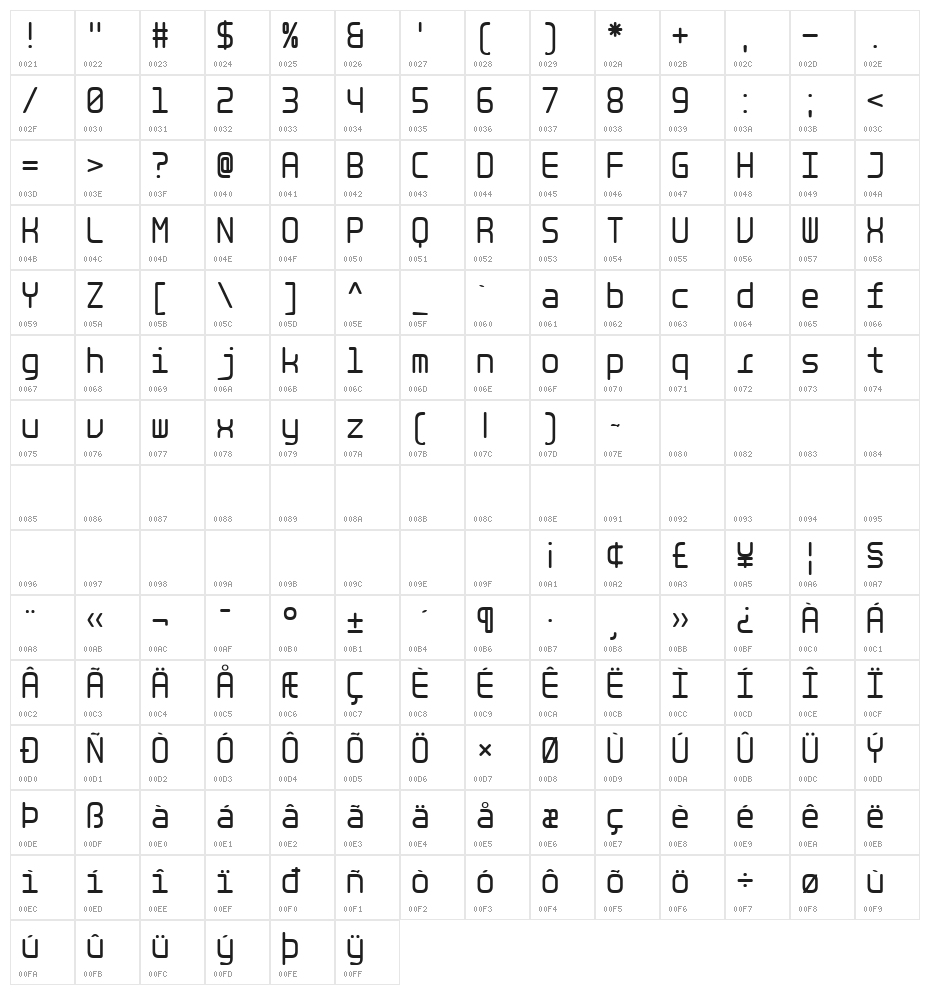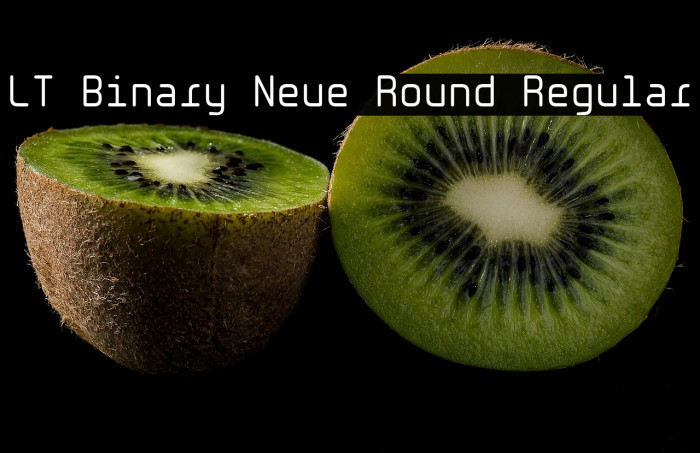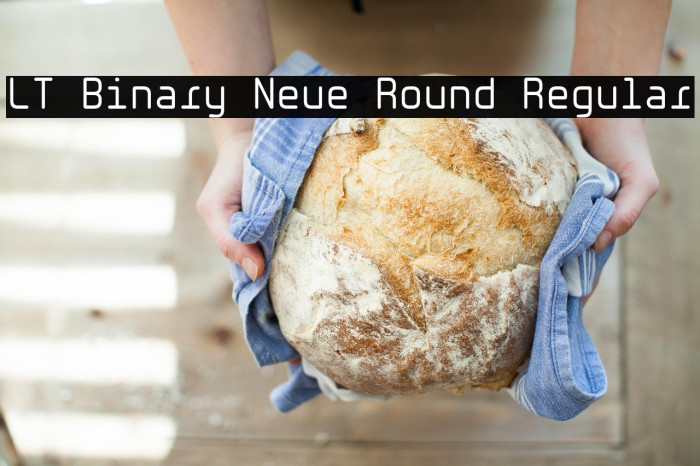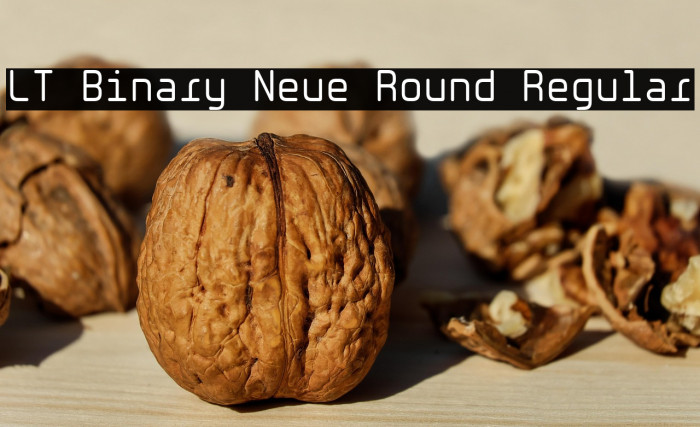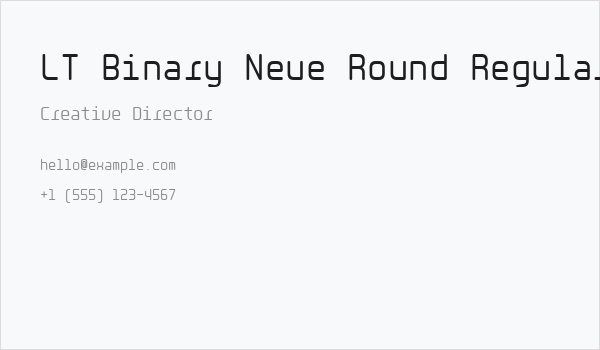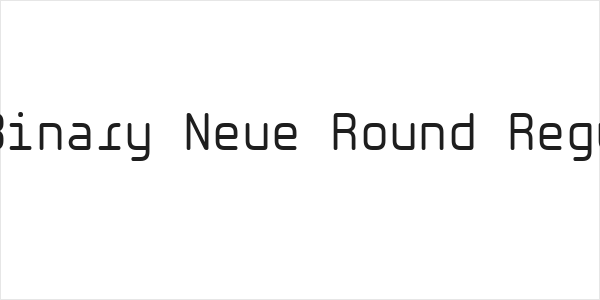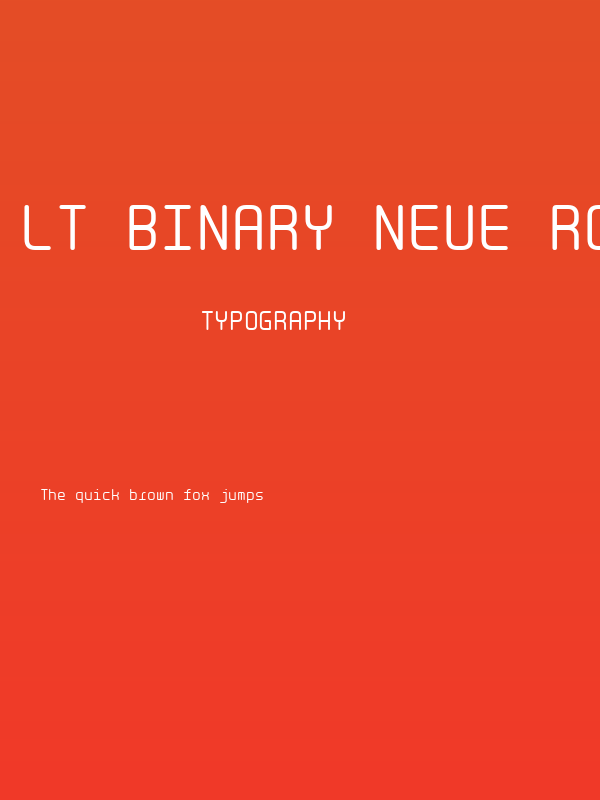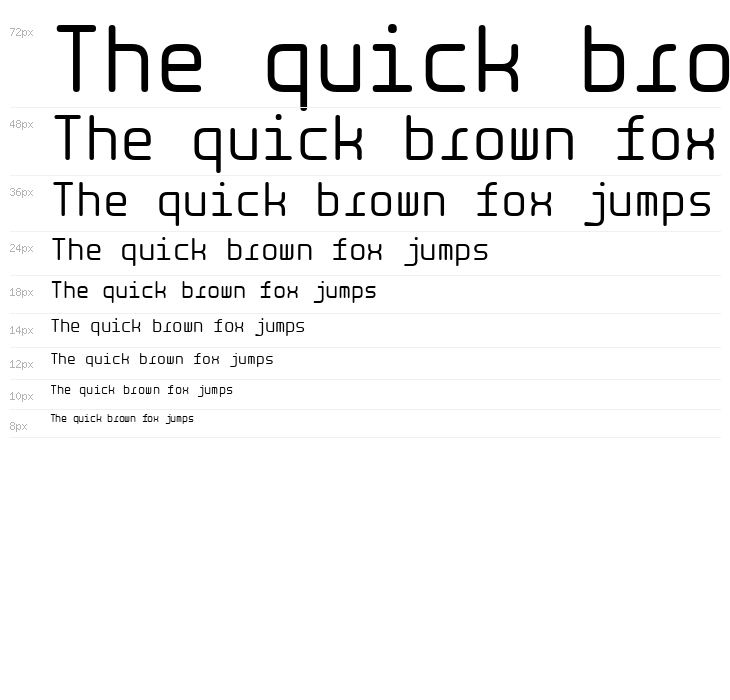
LT Binary Neue Round Regular Font
LT Binary Neue Round Regular Description
This font features a modern, rounded design with a clean and geometric appearance. The characters are evenly spaced, contributing to a balanced and harmonious look. The rounded edges give it a friendly and approachable feel, while maintaining a professional and sleek aesthetic. The uniform stroke width across all characters ensures consistency and readability, making it suitable for both digital and print media. Its simplicity and clarity make it versatile for various applications, from branding to user interfaces.
| Proposed Projects | Ideal for tech branding, user interfaces, digital content, and modern print designs. |